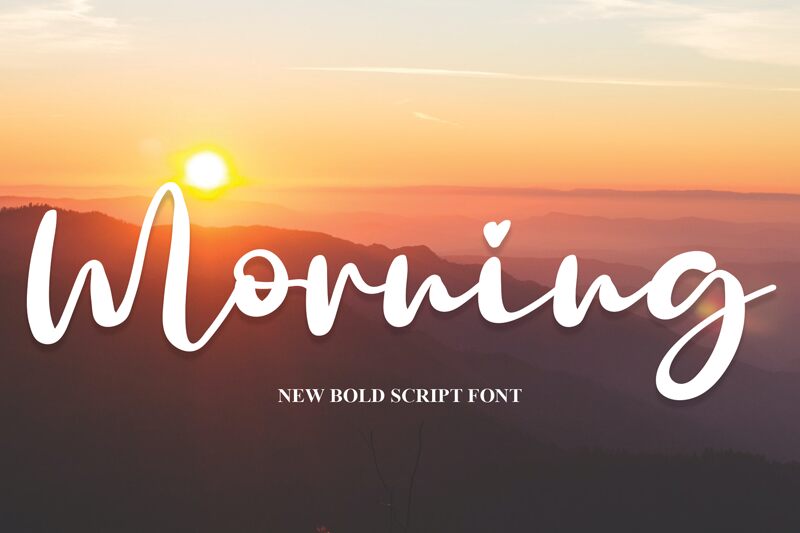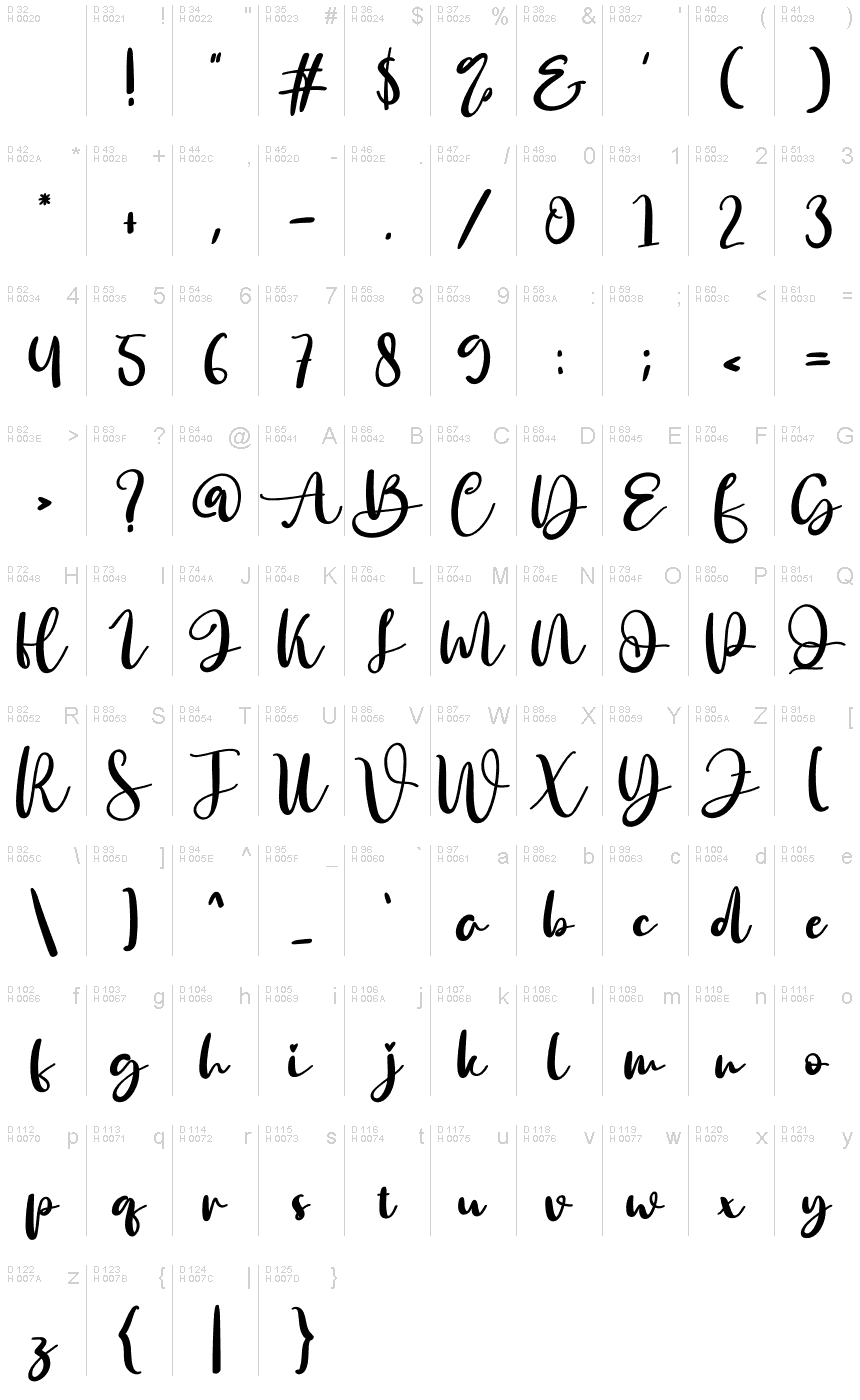
Morning
Morning, a charming handwritten font crafted by Scratchones, is the perfect choice for projects seeking a touch of whimsy and elegance. With its flowing strokes and delicate curves, this font adds a delightful personal touch to wedding invitations and event signage.
Its versatility shines in branding projects, evoking warmth and authenticity for artisanal businesses and organic products. The Morning font also excels in creating eye-catching social media graphics that capture attention with their unique flair.
Let Morning bring your designs to life with its enchanting handwritten style.